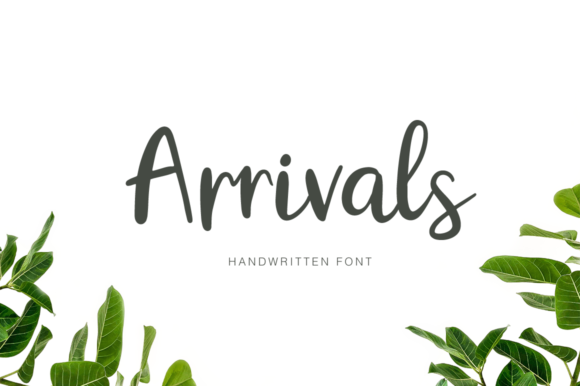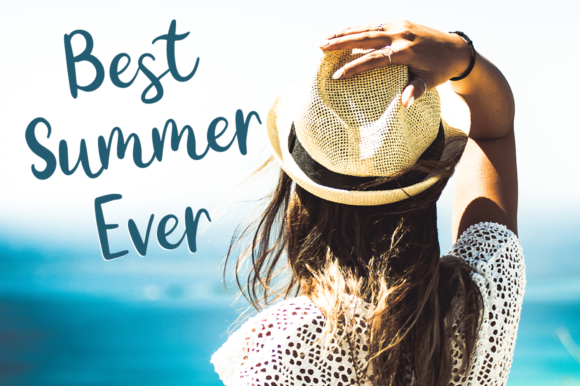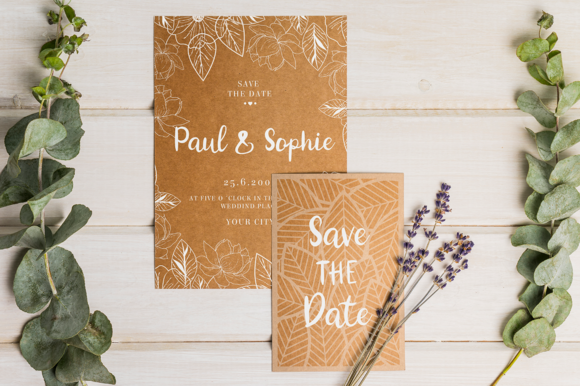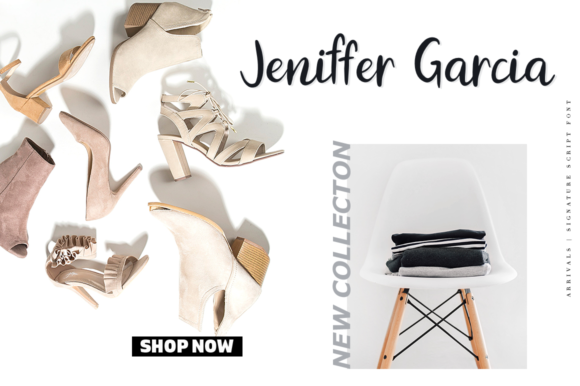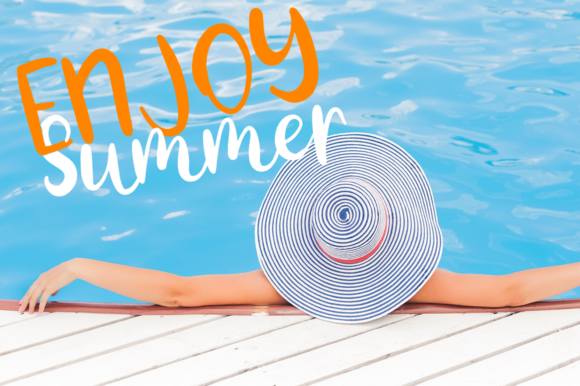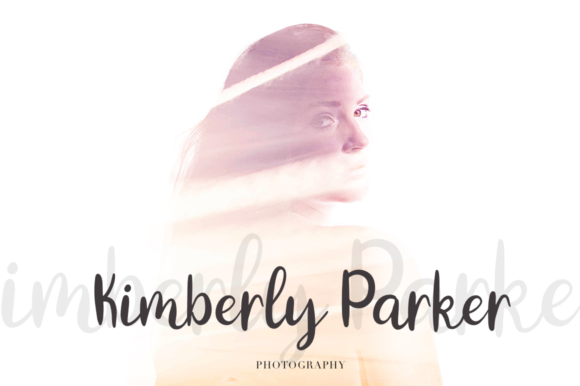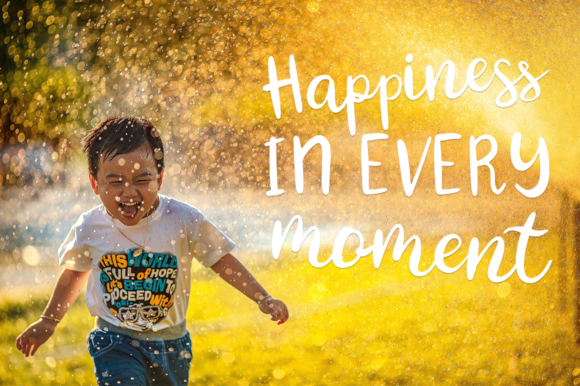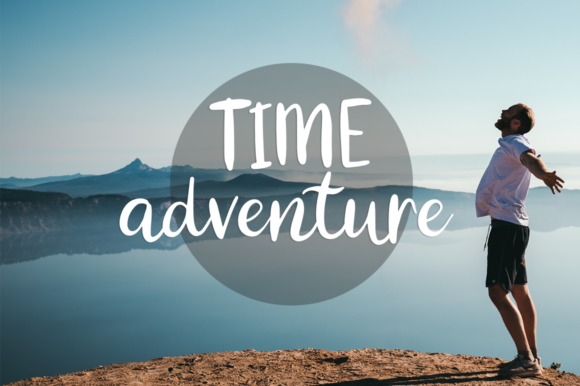
Arrivals Font
Arrivals is a new, fresh, handmade calligraphy font. With its clean and unique style, Arrivals is ideal for branding and decorating your projects.